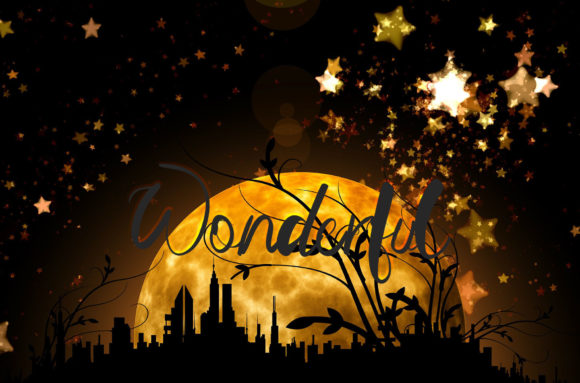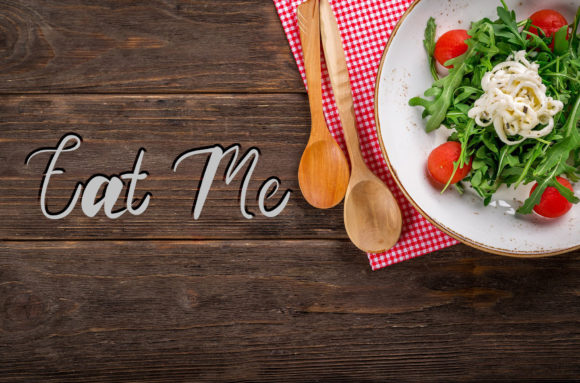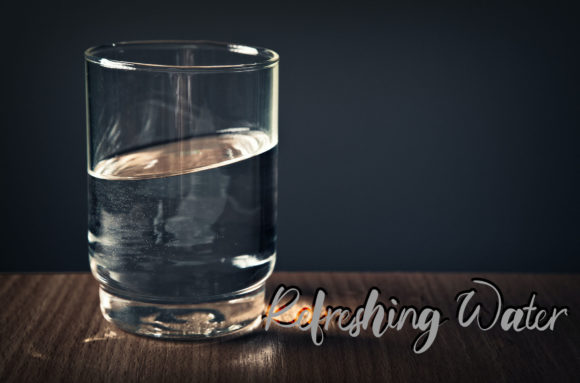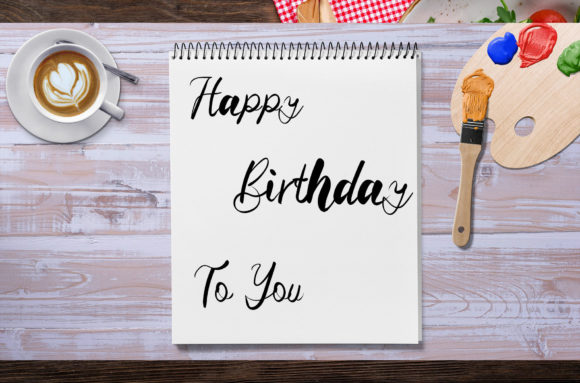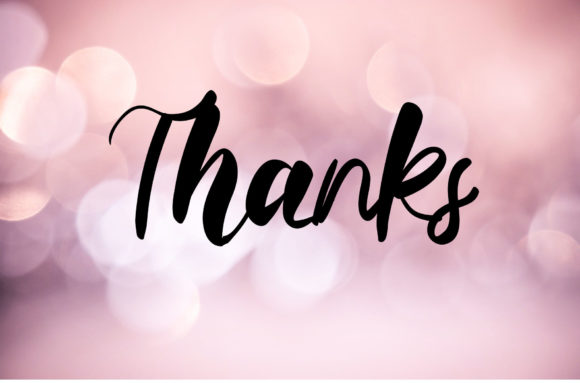
Wonderful Font
About Wonderful Font
Wonderful is a romantic and sweet calligraphy typeface with characters that dance along the baseline. It will add a luxury spark to any design project that you wish to create!